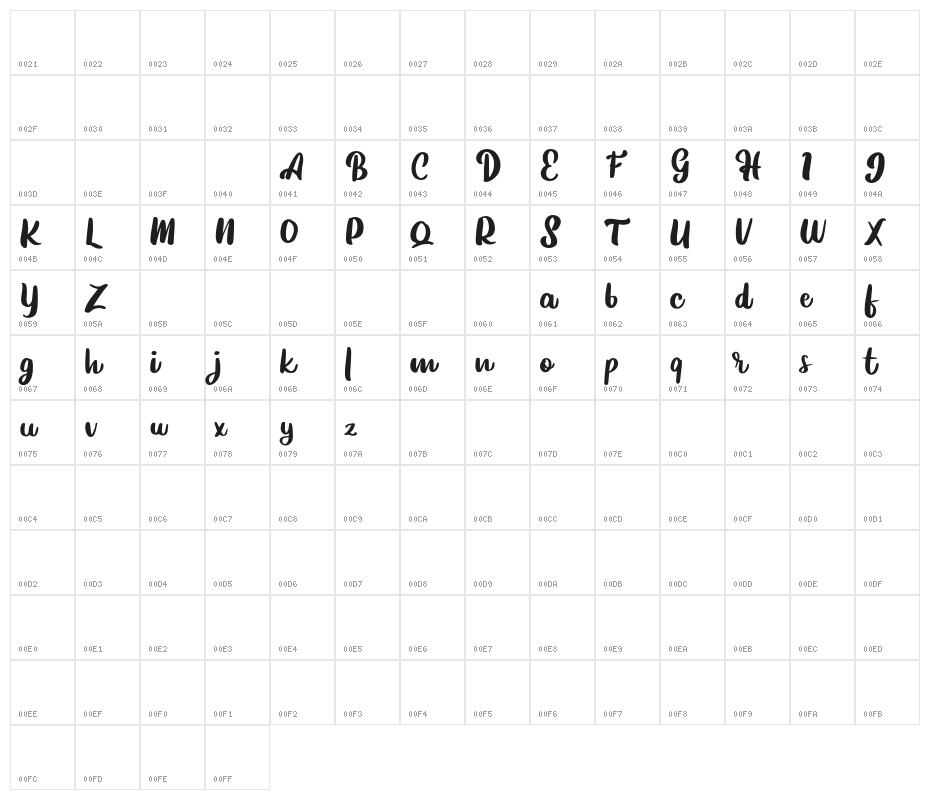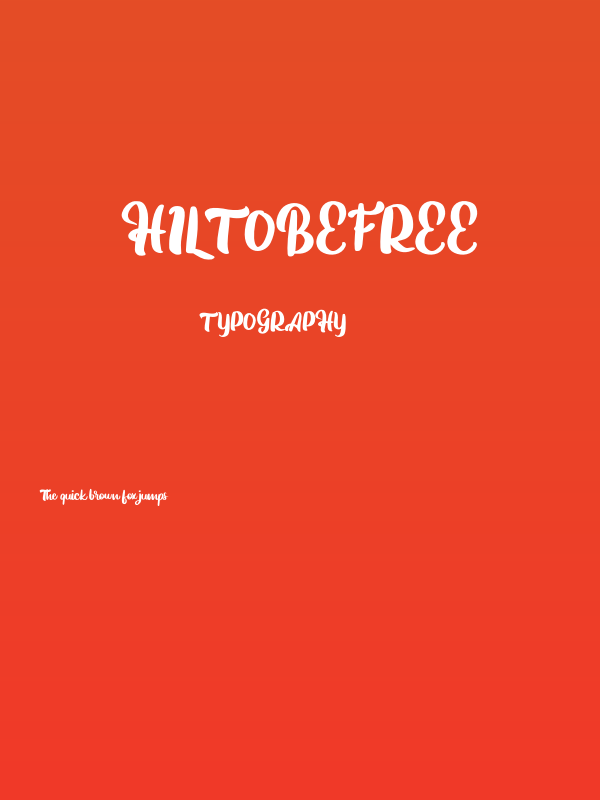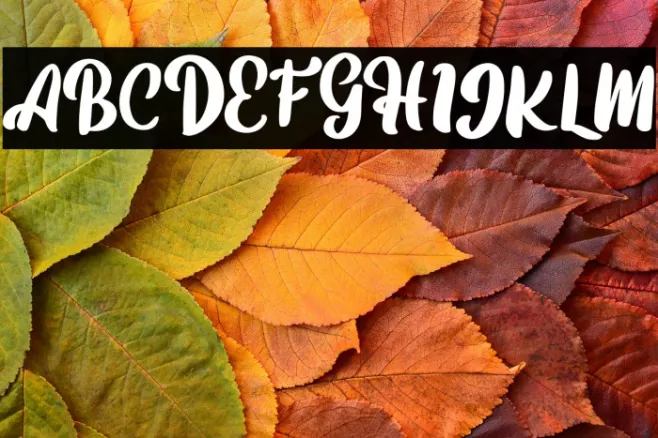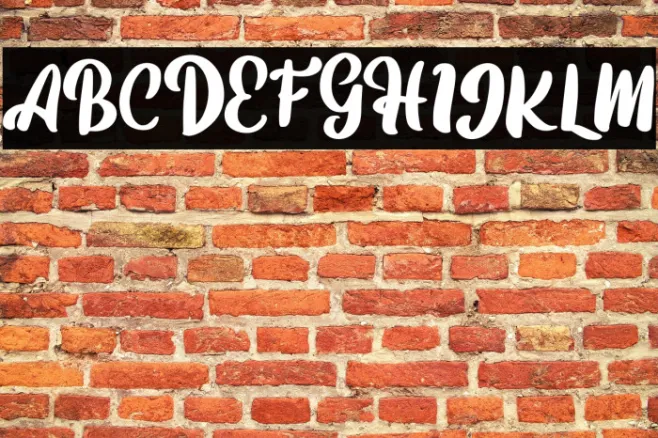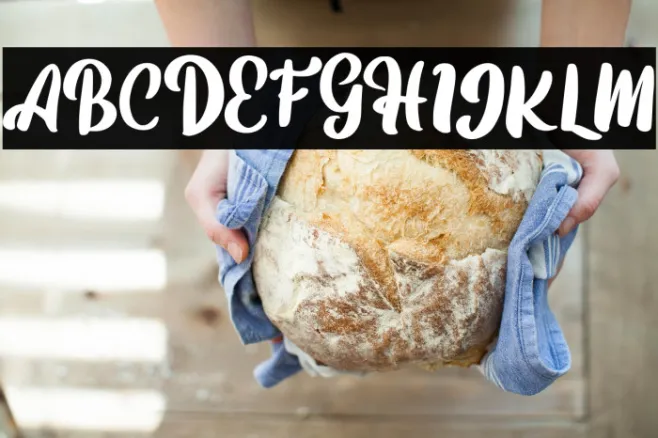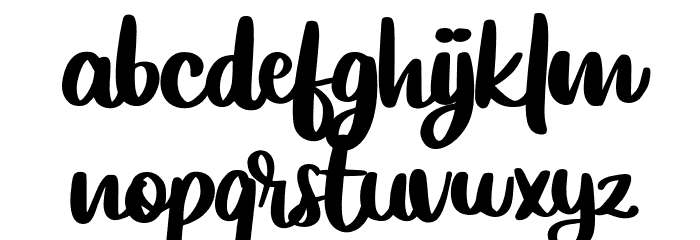
HiltobeFREE Font
HiltobeFREE Description
This font features a bold and playful script style with a handwritten feel. The characters are connected smoothly, creating a flowing and dynamic appearance. The uppercase letters are slightly larger and more pronounced, while the lowercase letters maintain a consistent rhythm. The strokes are thick and rounded, giving the font a friendly and approachable look. It is well-suited for designs that require a personal touch or a casual, informal vibe. The font's unique character shapes and curves make it stand out, adding a touch of creativity and flair to any project.